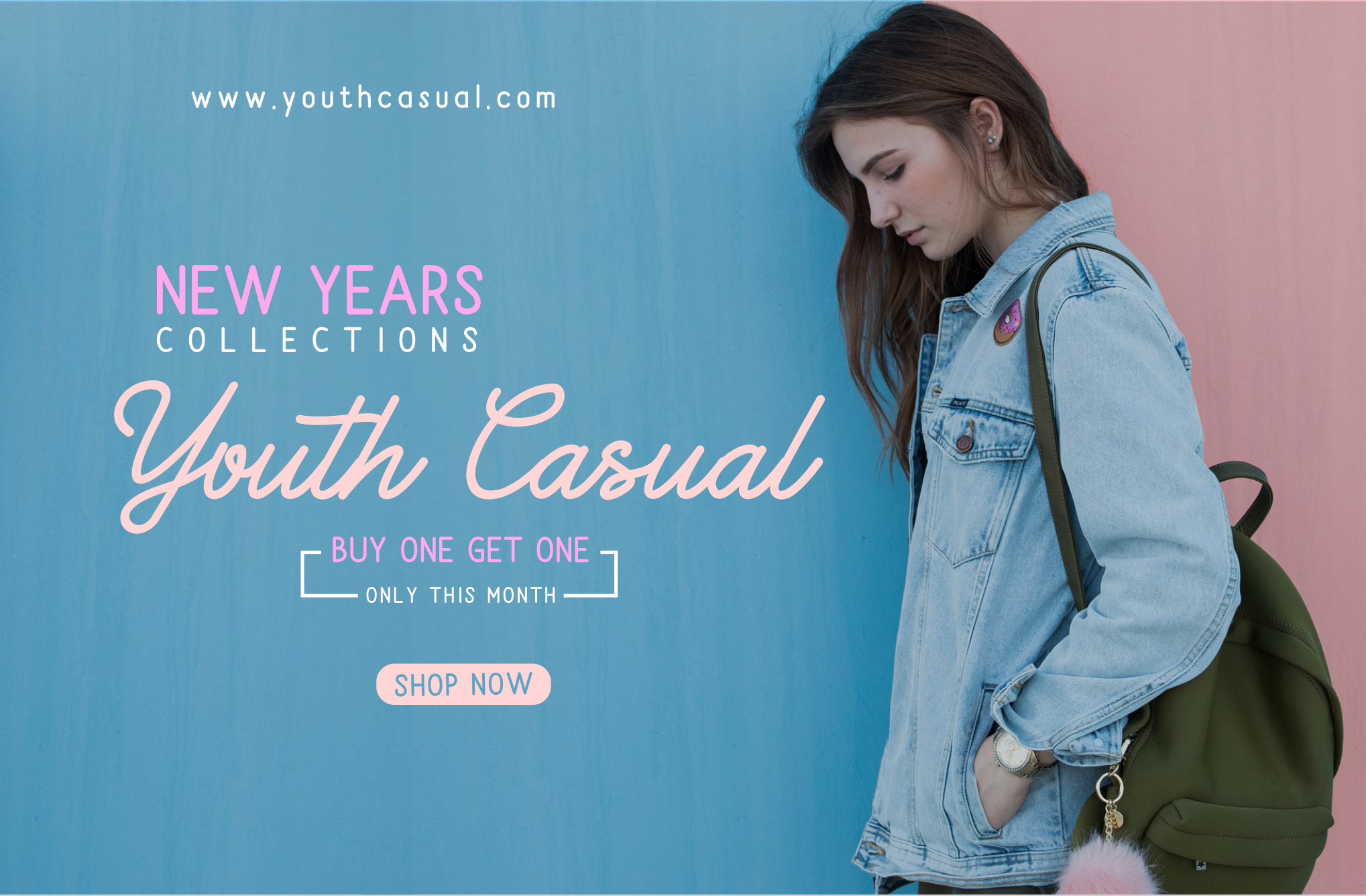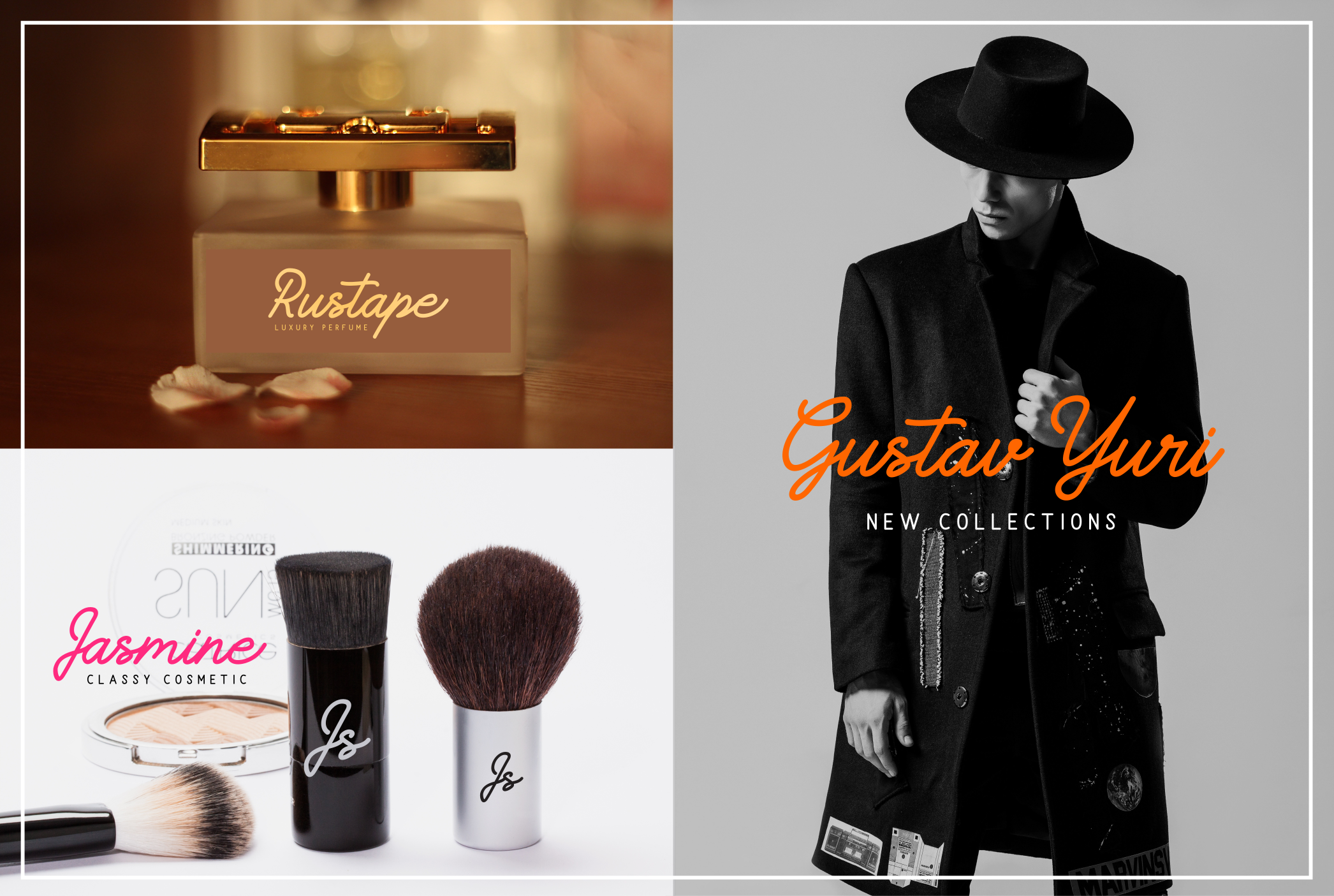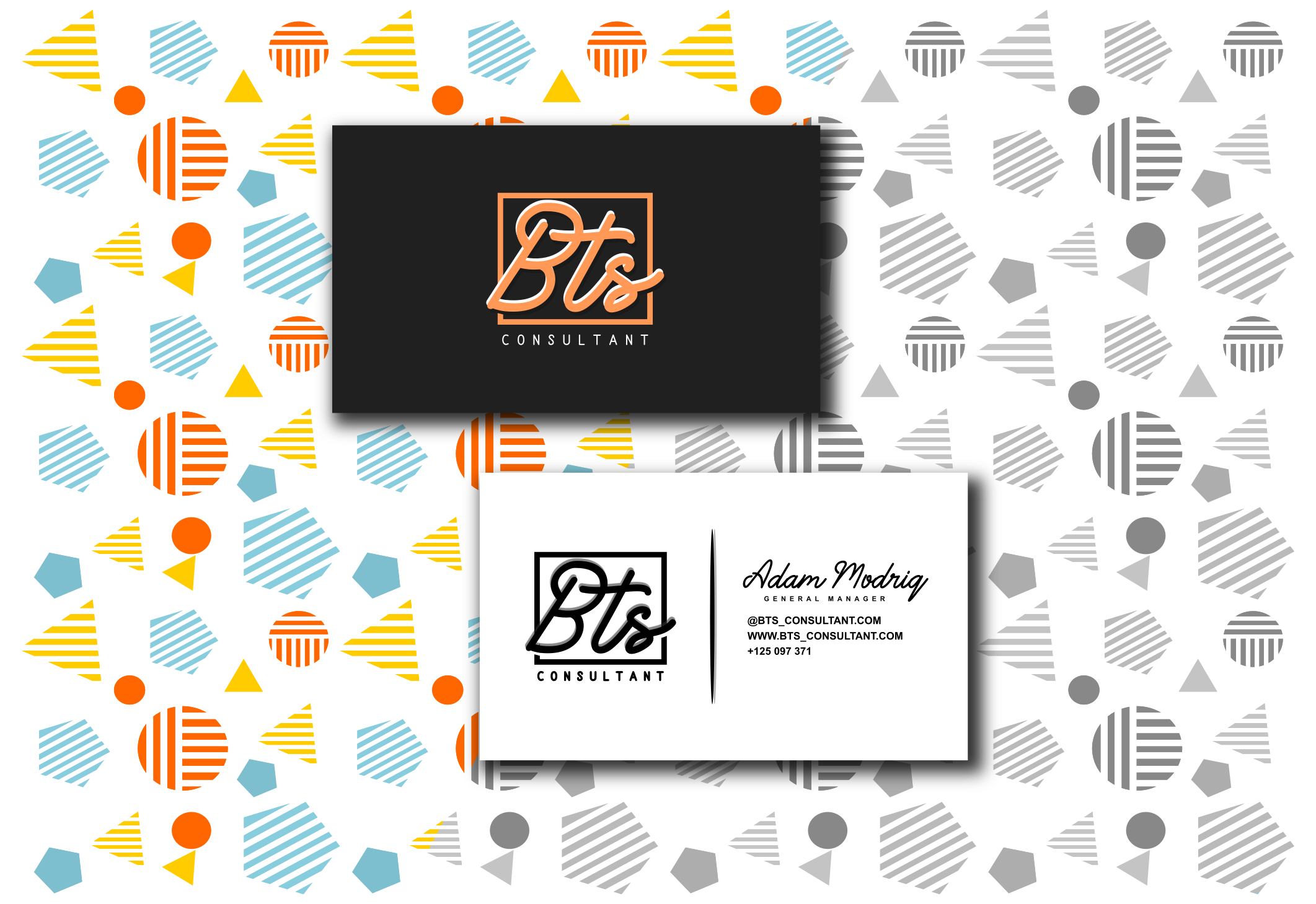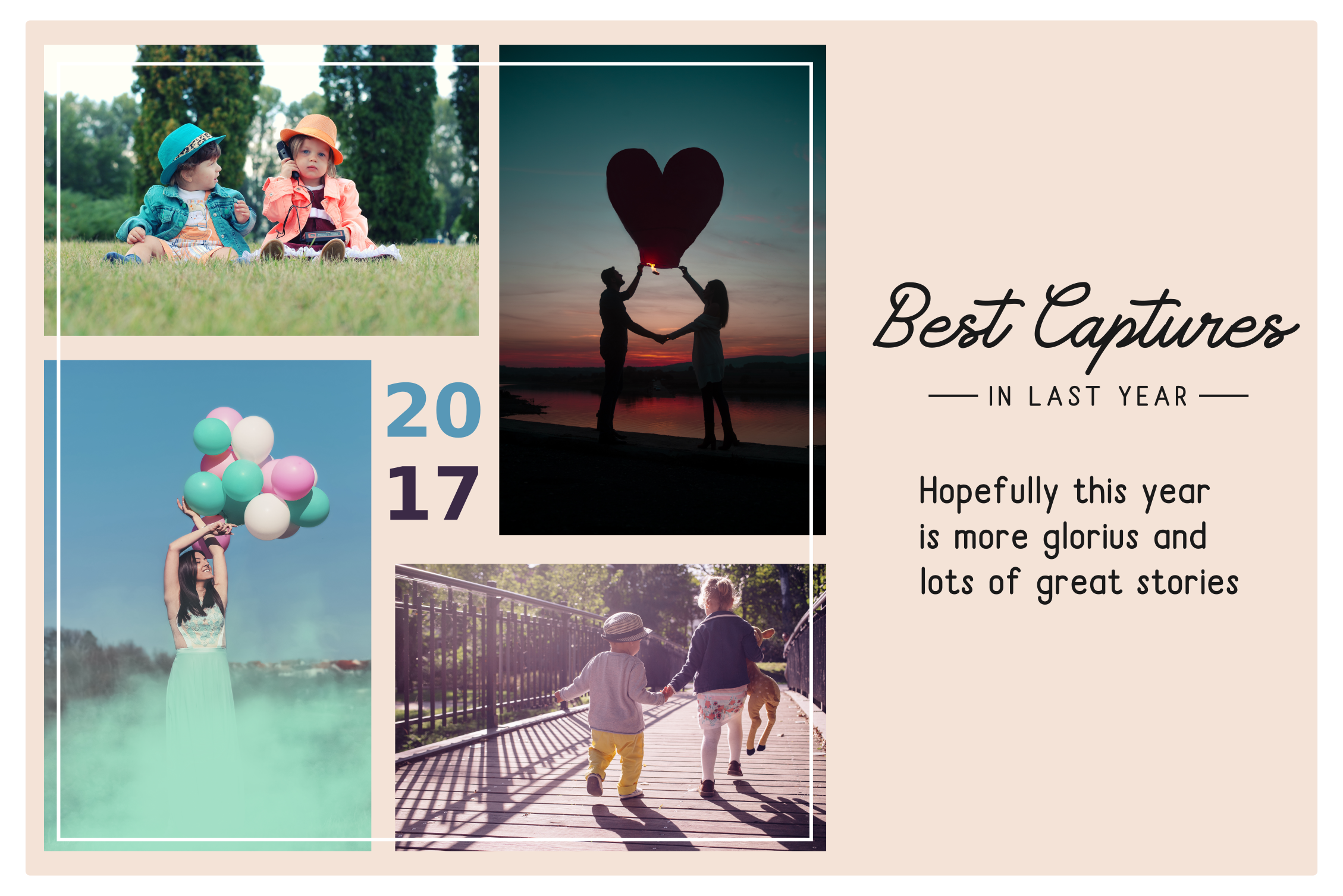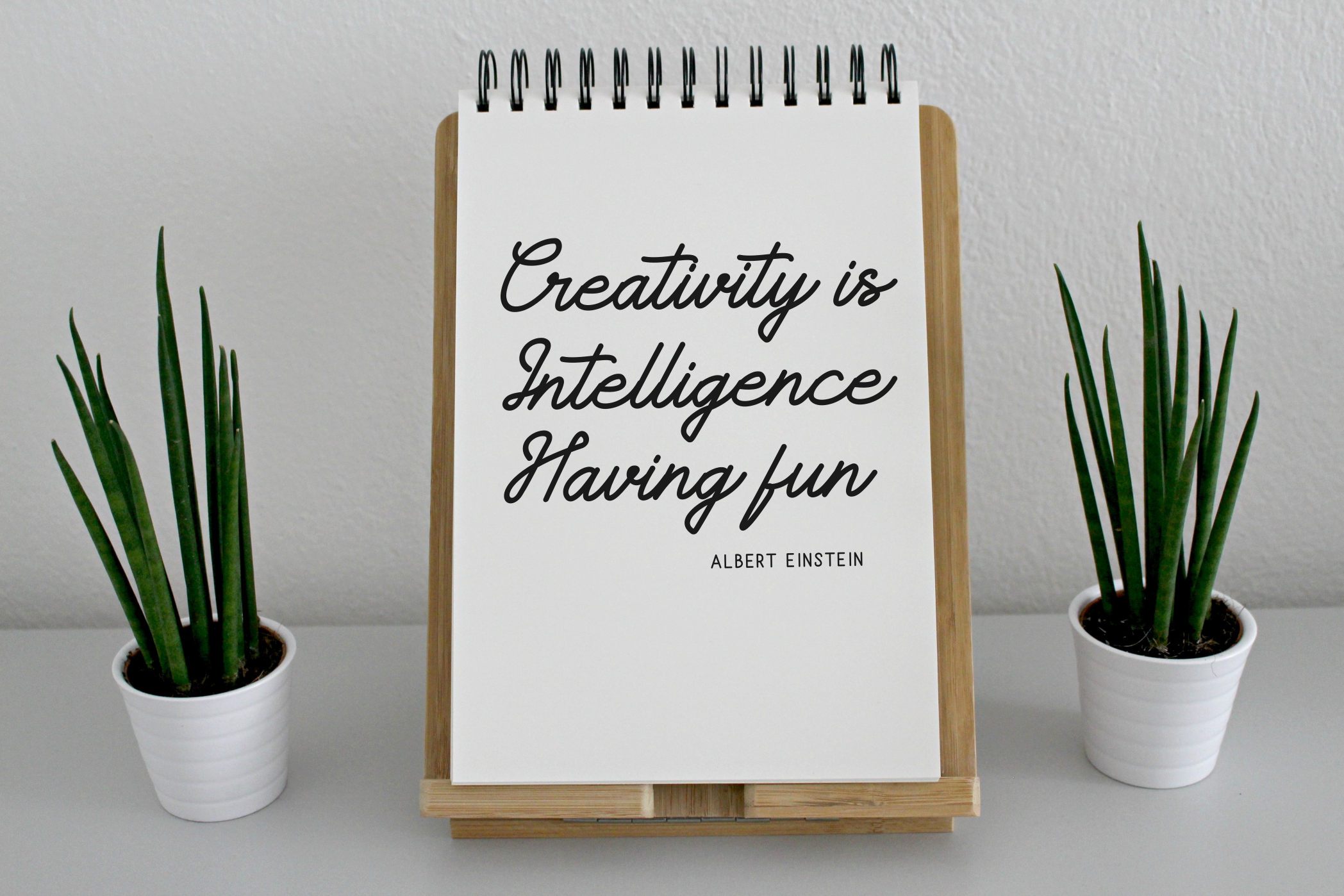
HomeScript FontsSunderlines Font Script Fonts Sunderlines Font FacebookTwitterPinterestWhatsApp Sunderlines Font Poster 2 Sunderlines Font Poster 3 Sunderlines Font Poster 4 Sunderlines Font Poster 5 Sunderlines Font Poster 6 Sunderlines Font Poster 7 Sunderlines Font Poster 8 Sunderlines Font Poster 9 Sunderlines Font Poster 10 About Sunderlines Font Sunderlines is a typeface with a smooth character. It’s elegant and can be used for a large range of projects. DOWNLOAD NOW People also explored Stangen Font Dracula Font Heartfelt Font Hello Bithosa Font Northern Stars Spaced Font Good Looking Font Cobeg Felix Font Mandala Font Catch You Font 156 0 TagsSunderlines Font Previous articleBergita FontNext articleBehind Brown Eyes Font LEAVE A REPLY Cancel reply Comment: Please enter your comment! Name:* Please enter your name here Email:* You have entered an incorrect email address! Please enter your email address here Website: Save my name, email, and website in this browser for the next time I comment. Personal Use Free Gupis Personal Use Free Read more about this font Rheiborn Personal Use Free Read more about this font Puisi Adinda Personal Use Free Read more about this font True Love Personal Use Free Read more about this font BLOG Exploring Font Trends Shaping Communication in the Digital Era Fonts, like all design elements, are subject to trends. They play a crucial role in communicating a brand's personality,... Elegant Wedding Invitation Fonts – Handwritten & Script Fonts Using Fonts in Digital Marketing: Tips to Strengthen Your Brand Identity Where to Buy American Fonts Online in 2024